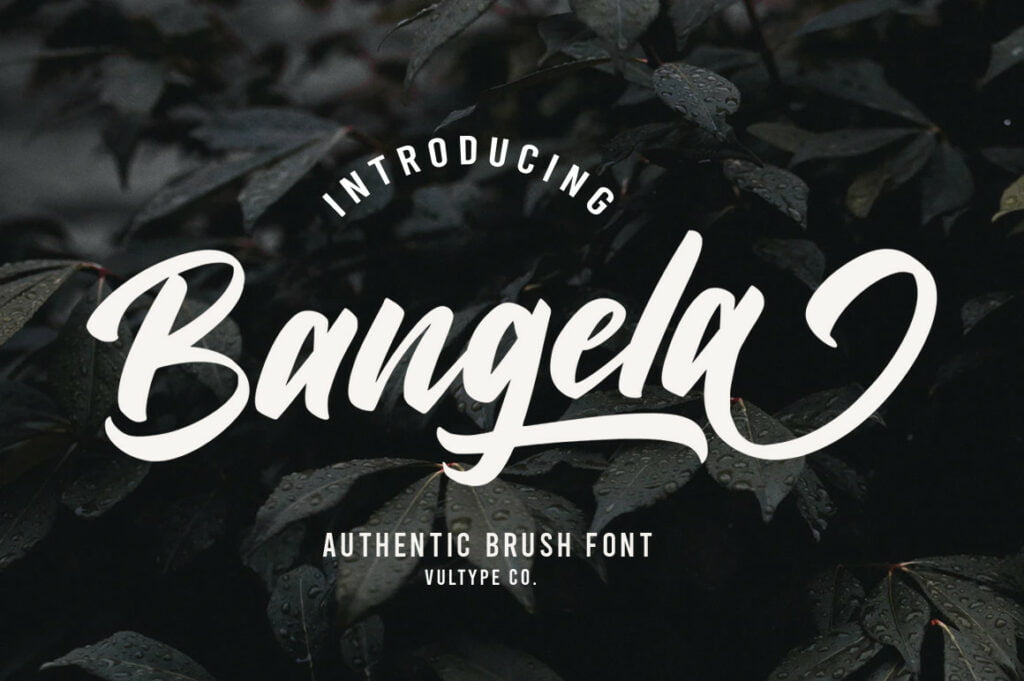
Bangela Font
Bangela is a beautiful light handwritten font with a unique feel and a stunning impact. It will add a luxury spark to any design project that you wish to create! This font is PUA encoded which means you can access all of the amazing glyphs and ligatures with ease!
Bangela Brush Script Font